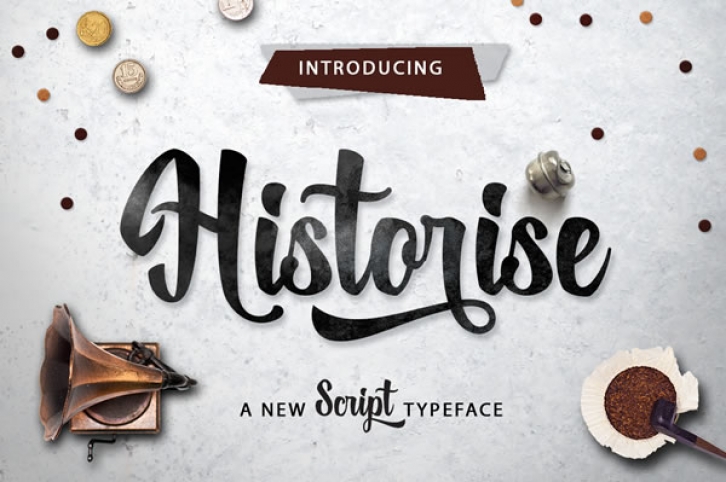
Historise is a stunning typeface created by the Mercurial Foundry.
This font is created to add a unique bold look & feel to your design. The font is PUA encoded and features:
- Uppercase & Lowercase characters
- International Language Support
- Symbols
- Punctuation & Numbers
- Standard Ligatures
- Discretionary Ligatures
- Contextual Alternates
- Swashes